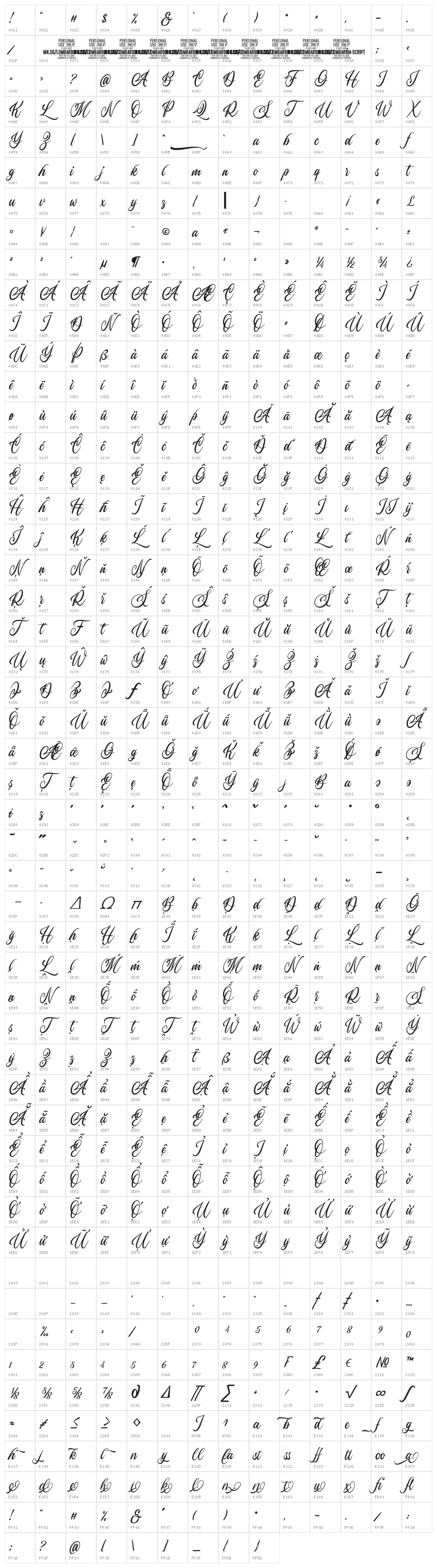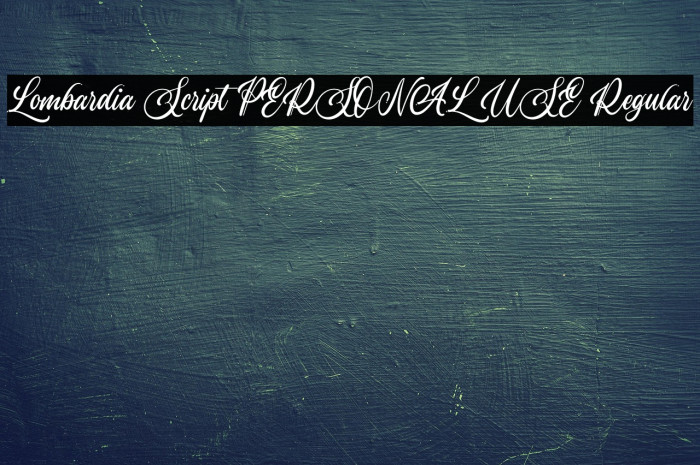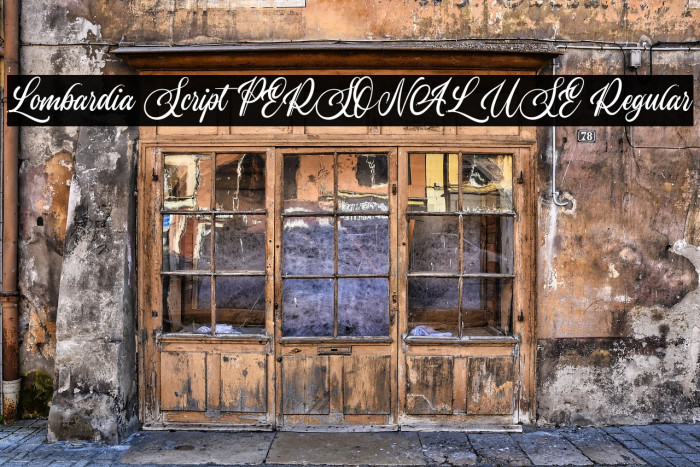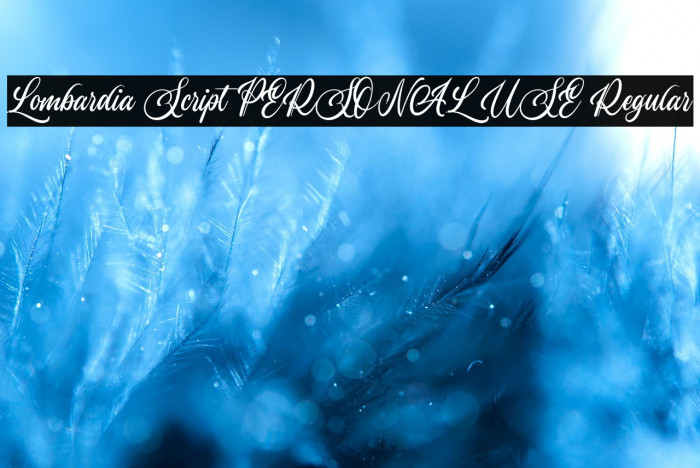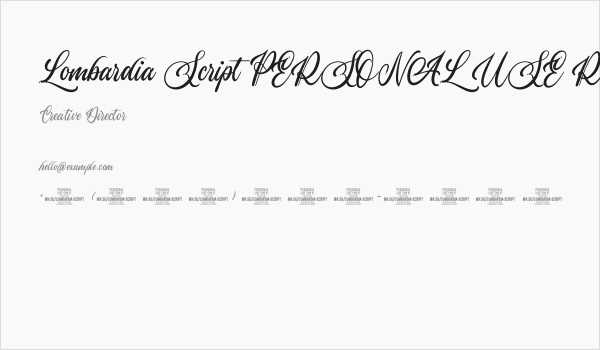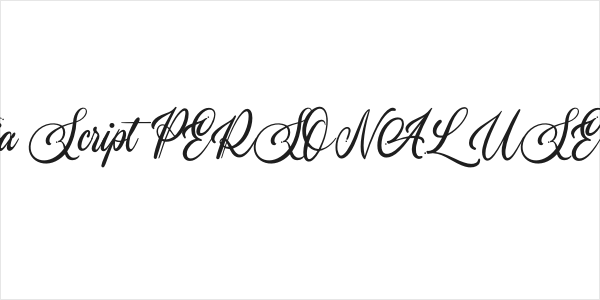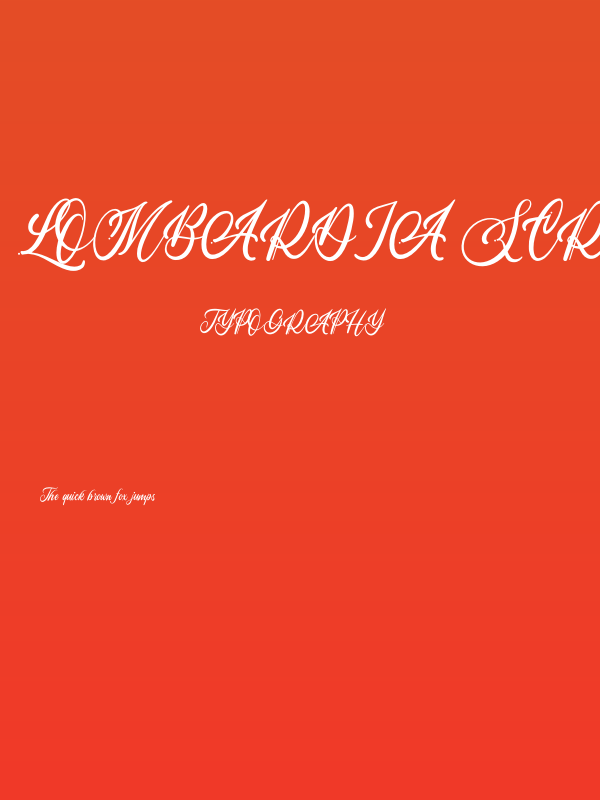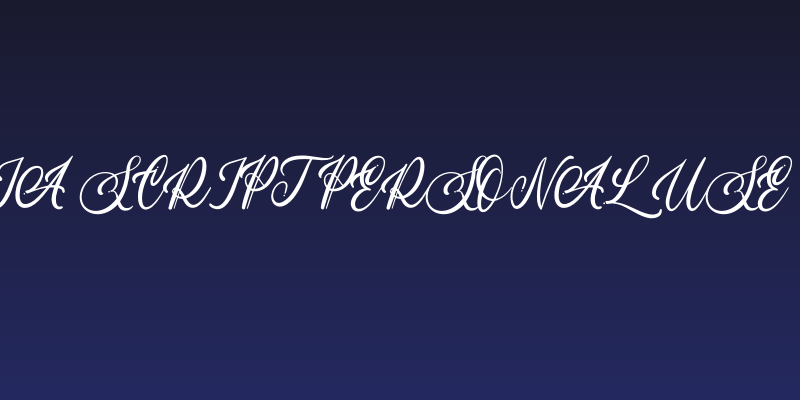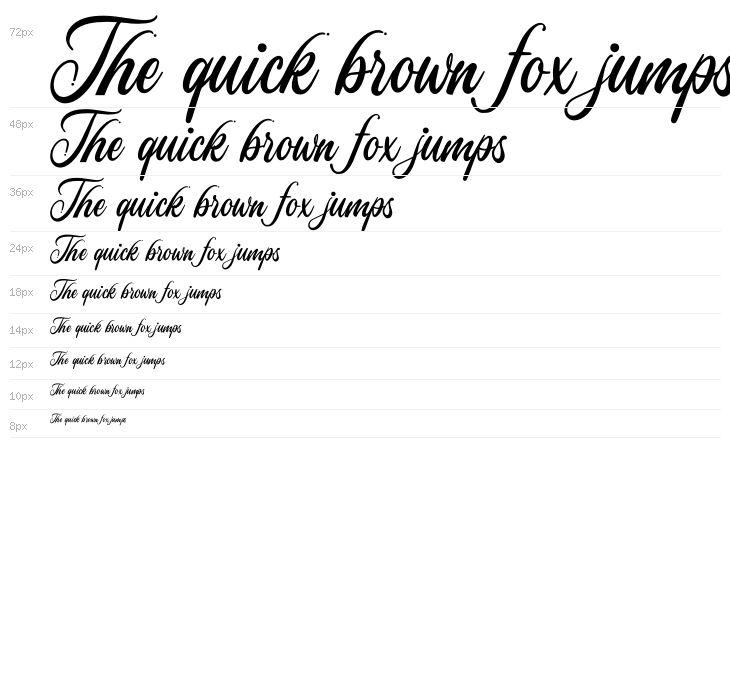
Lombardia Script PERSONAL USE Regular Font
Lombardia Script PERSONAL USE Regular Description
This elegant script font features a flowing, cursive style with intricate loops and swashes, giving it a sophisticated and artistic appearance. The uppercase letters are particularly ornate, with extended flourishes that add a touch of grandeur. The lowercase letters maintain a consistent flow, enhancing readability while retaining the decorative essence. The numerals and special characters are designed to complement the overall aesthetic, ensuring a cohesive look across all text elements. This font exudes a sense of luxury and refinement, making it ideal for projects that require a touch of elegance.
| Overall Style | Elegant, Decorative |
| Proposed Projects | Ideal for wedding invitations, luxury branding, elegant packaging, and high-end product labels. |